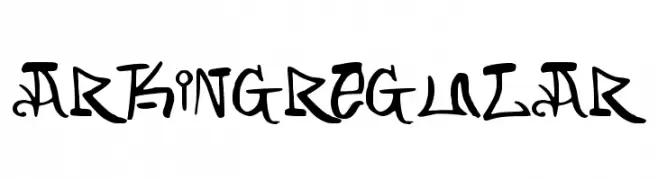
A functional MICR font for machine-readable financial data encoding.
A bold, playful outline font with a hand-drawn appearance.
An edgy, punk-inspired font with chain and piercing motifs.
A bold, edgy font inspired by body piercings and chains.
A playful, handwritten-style font with bold, rounded characters.
An ornate and decorative font with jewel-like embellishments.
A bold, dynamic font with angular strokes and a playful slant.
Среди последних фаворитов — MICR Encoding, OutlineTwelve, Bergamot Ornaments, BodyPiercing&Chains and Body Piercing & Chains. Они сочетают ясность и индивидуальность, хорошо подходят для тех‑брендов, редакционных макетов и социальных визуалов.